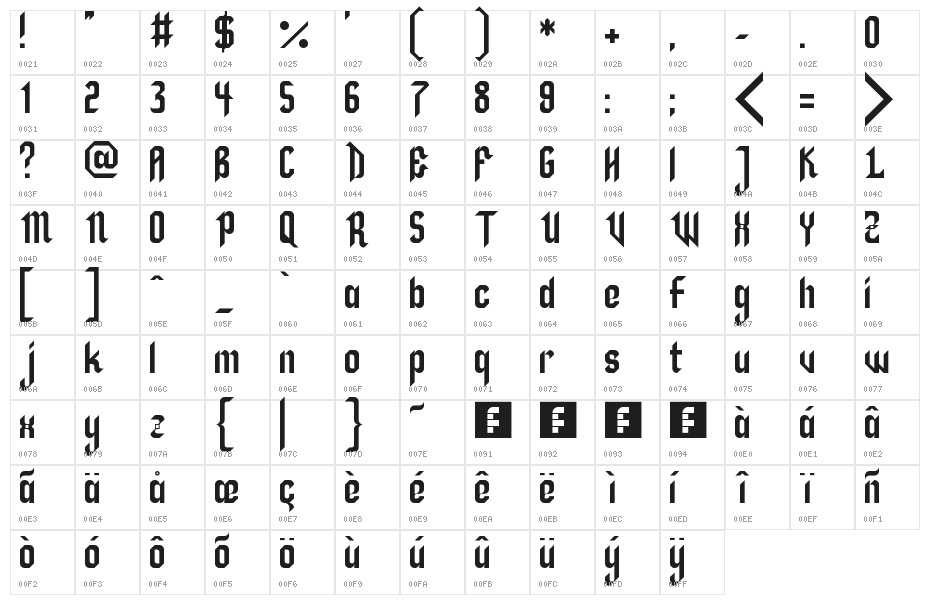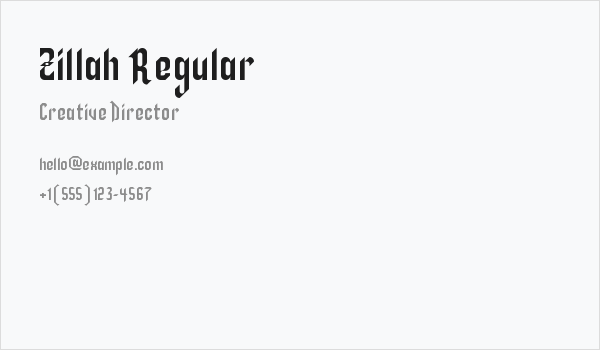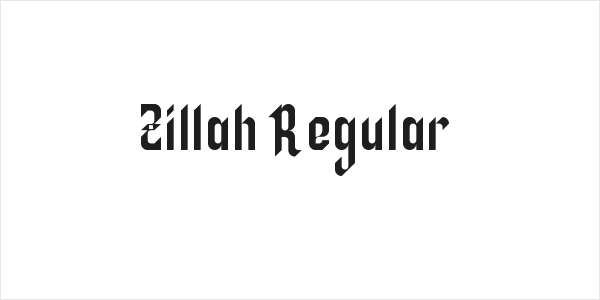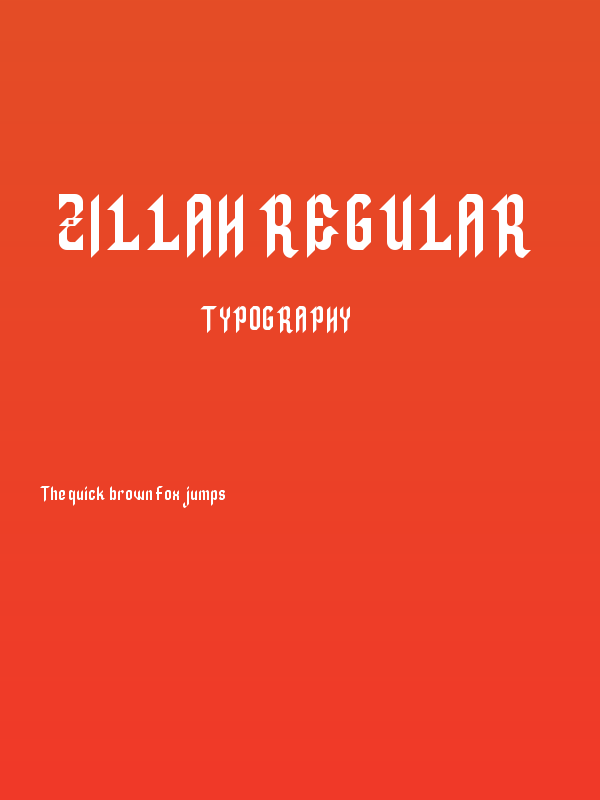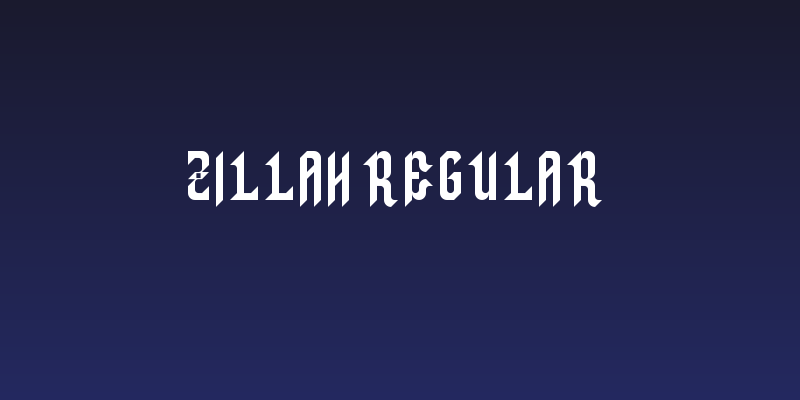
Zillah Regular Font
Zillah Regular Description
This font features a bold and striking design with sharp, angular edges and a gothic influence. The uppercase letters are tall and narrow, with pointed serifs and a distinct medieval flair. The lowercase letters maintain the same angular style, offering a cohesive look across the typeface. Numbers are equally bold, with a consistent height and width that matches the overall aesthetic. Special characters are designed to complement the letterforms, maintaining the sharp, edgy style. This font is ideal for projects that require a dramatic and impactful visual presence.
| Proposed Projects | Ideal for posters, album covers, branding for edgy or alternative products, and any design needing a dramatic flair. |